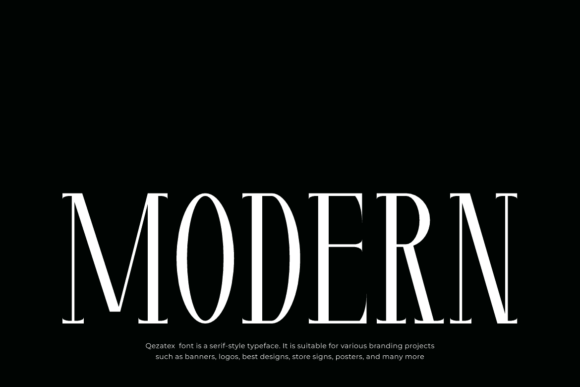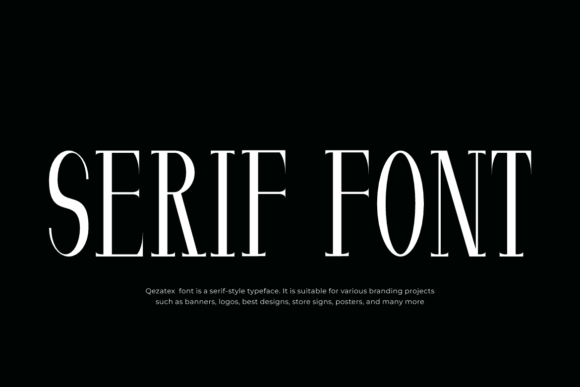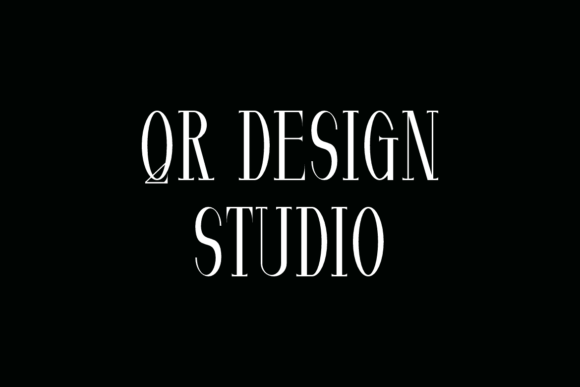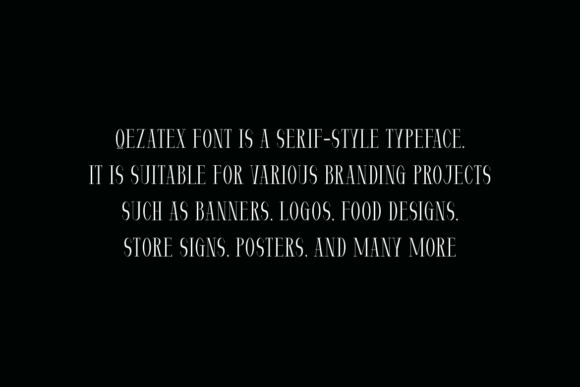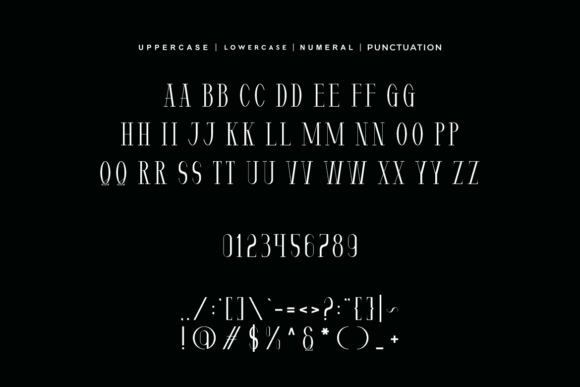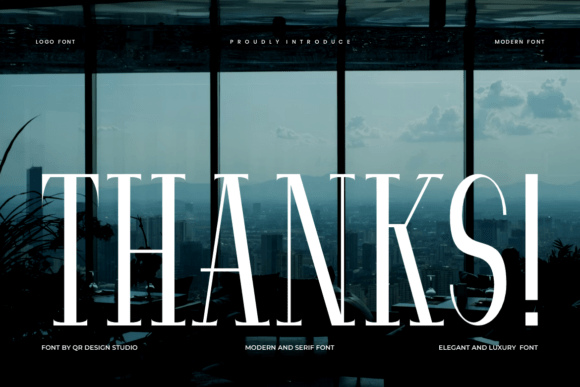
Introduction to Qezatex Font
The moment of truth has finally arrived – you’ve landed the perfect creative project, and now it’s time to bring it to life. You’re eager to infuse your design with a dash of elegance and sophistication, but you need the right tool to make it happen. That’s where Qezatex Font comes in – a serif and authentic display typeface that’s perfect for branding projects, logos, and modern designs.
As a designer, you know how valuable a high-quality design resource can be. Qezatex Font is more than just a font – it’s a game-changer that can elevate your entire creative project. With its transparent background and crisp lines, this font is ideal for designers who want to make a lasting impression. And the best part? You can download it for free, making it an invaluable addition to your design arsenal.
Key Features of Qezatex Font
- High-quality design resource ideal for creative projects, offering a unique and stylish touch.
- Features a transparent background, allowing for seamless integration with other design elements.
- Unique characteristics: elegant, modern, and sophisticated design, making it perfect for branding, logos, and advertising materials.
Honest Review: Qezatex Font
I recently came across the Qezatex Font and I must say, I’m impressed with its potential as a design resource. As a designer, I’m always on the lookout for high-quality fonts to elevate my creative projects.
What works well with the Qezatex Font is its unique blend of modern and traditional elements. The font is perfect for designers who want to add a touch of elegance and sophistication to their designs. I particularly like the fact that it has a transparent background, making it easy to use with any design element.
- Some characters may not render properly in certain font sizes.
- The font may not be as versatile as some other high-end fonts.
Overall, I would say that the Qezatex Font is a solid addition to any designer’s toolkit. While it may not be perfect, its unique style and transparent background make it a great choice for creative projects. I give it 4 out of 5 stars. ✨
The Qezatex Font is a high-quality design resource perfect for creative projects that require a unique and stylish touch. With its transparent background, this font can be easily layered and manipulated in various design applications.
The Qezatex Font is perfect for use in creative projects such as logos, branding materials, and marketing materials. It can also be used in digital design projects such as website headers and social media graphics.